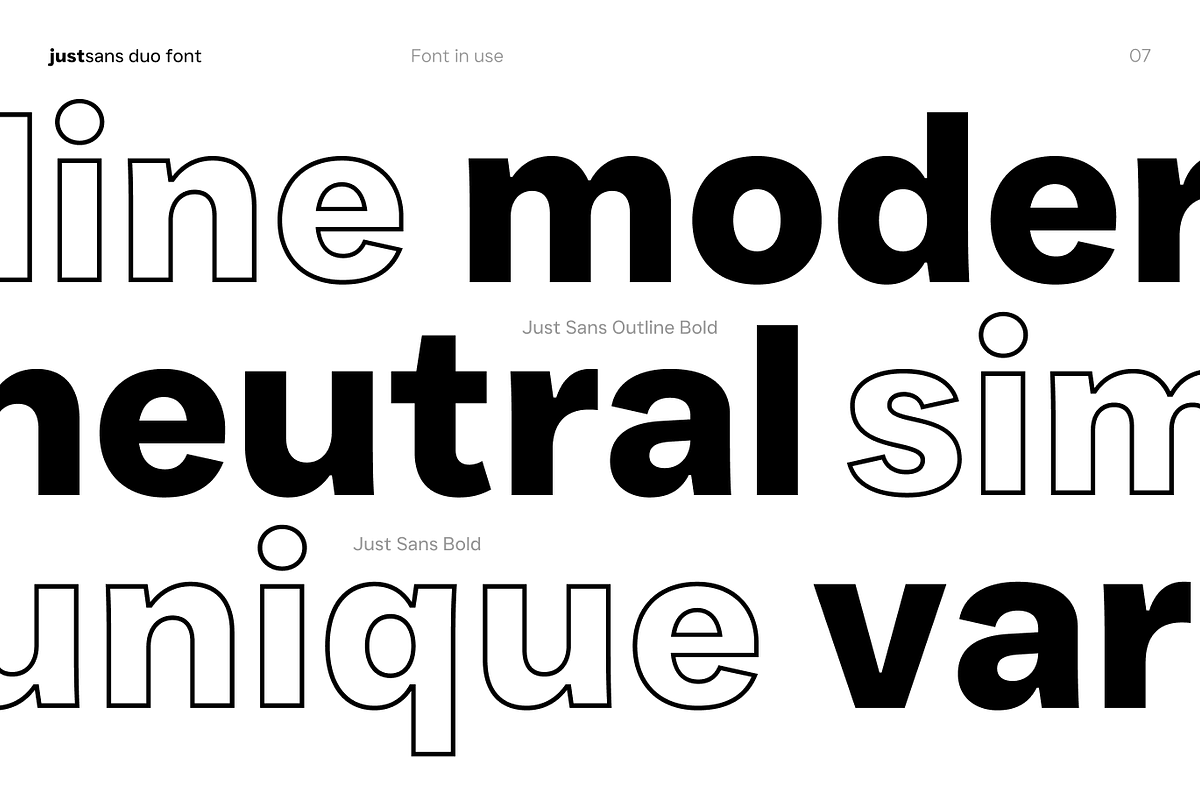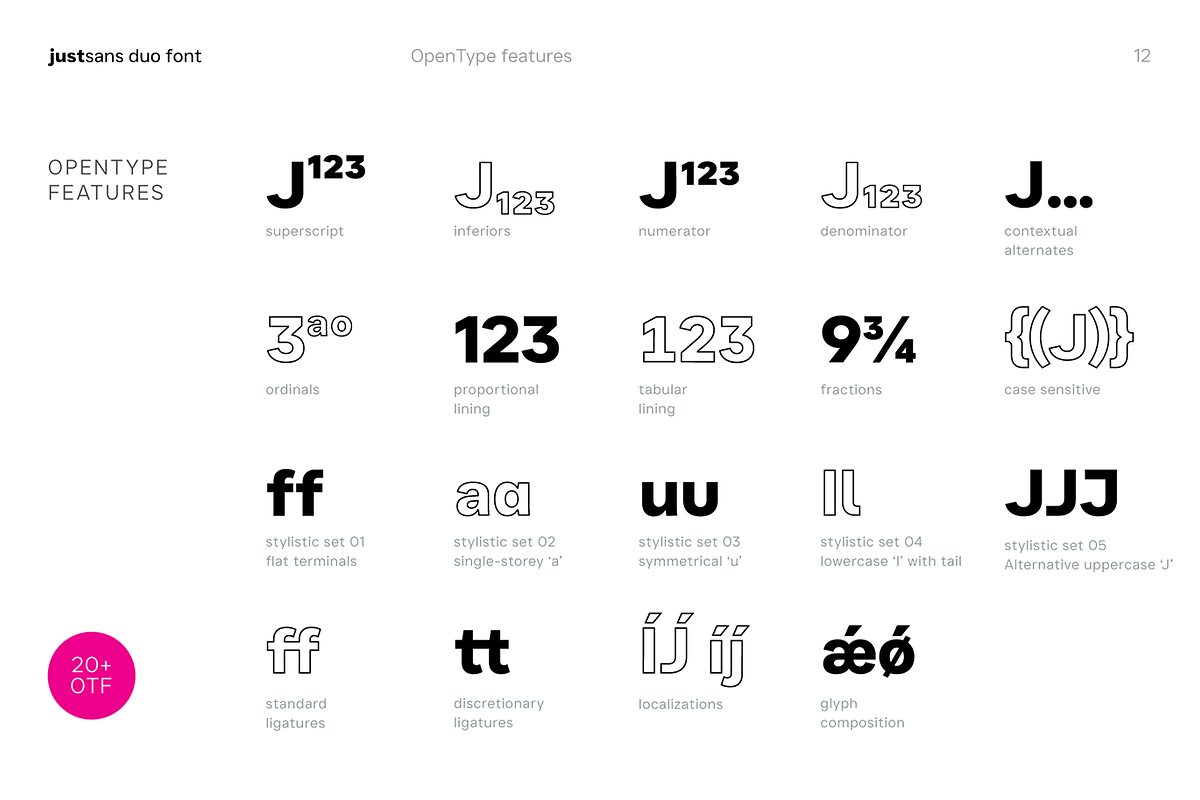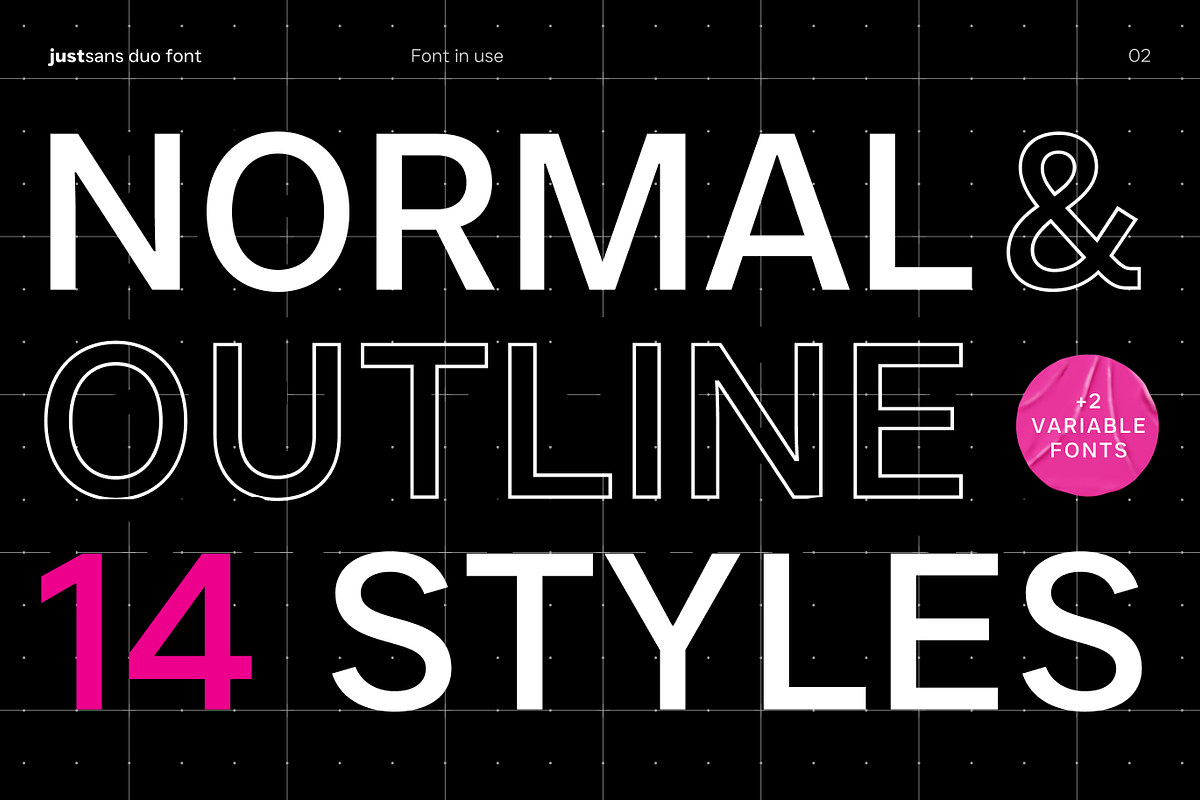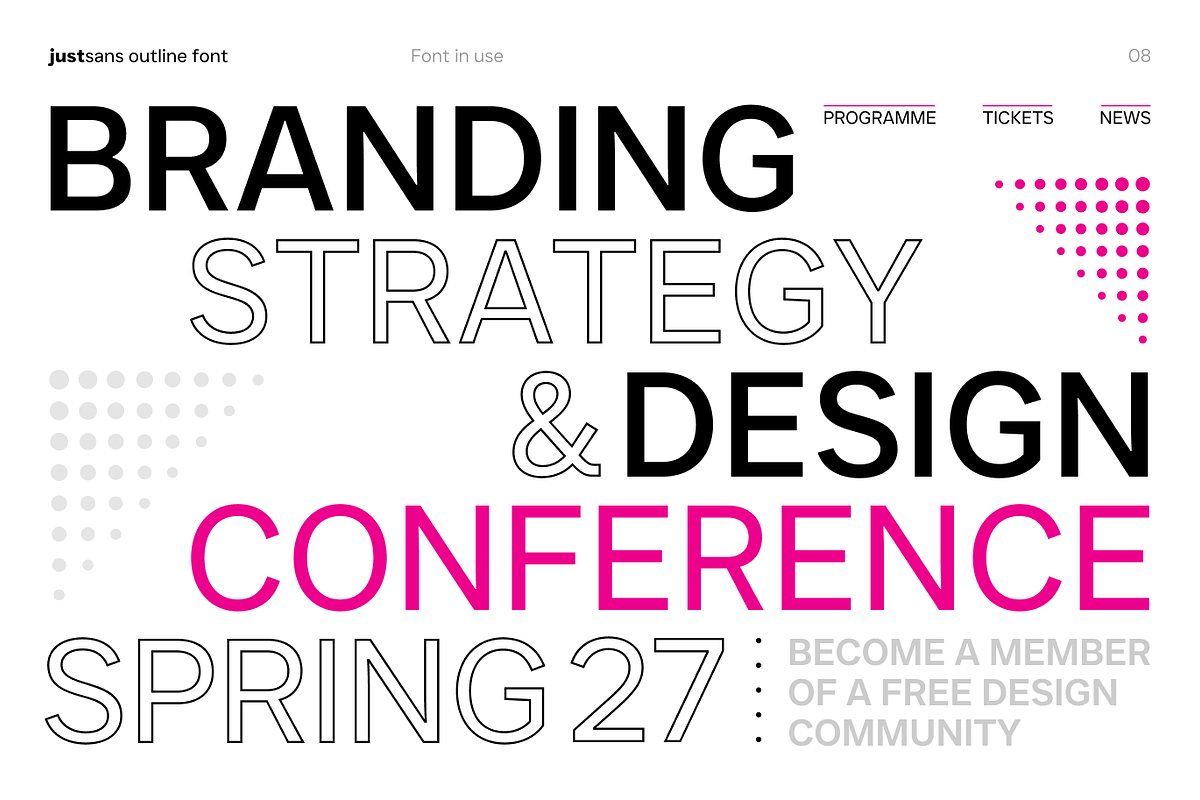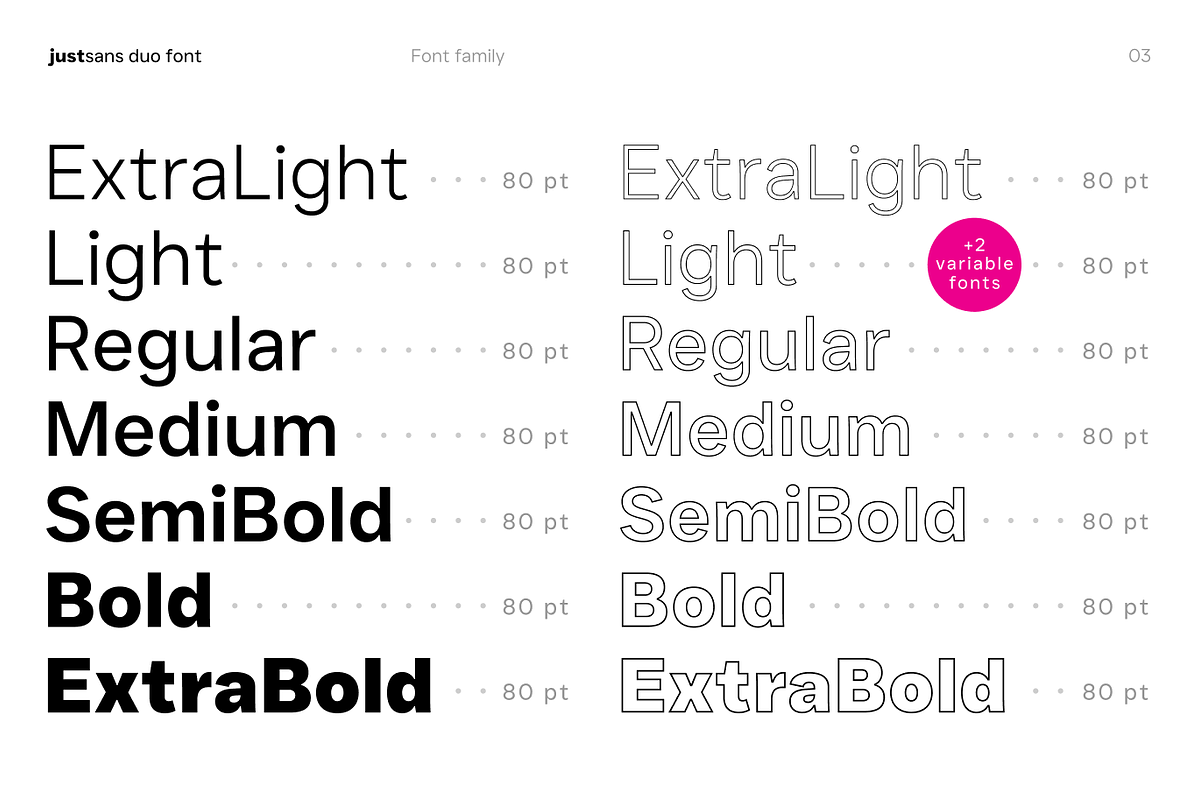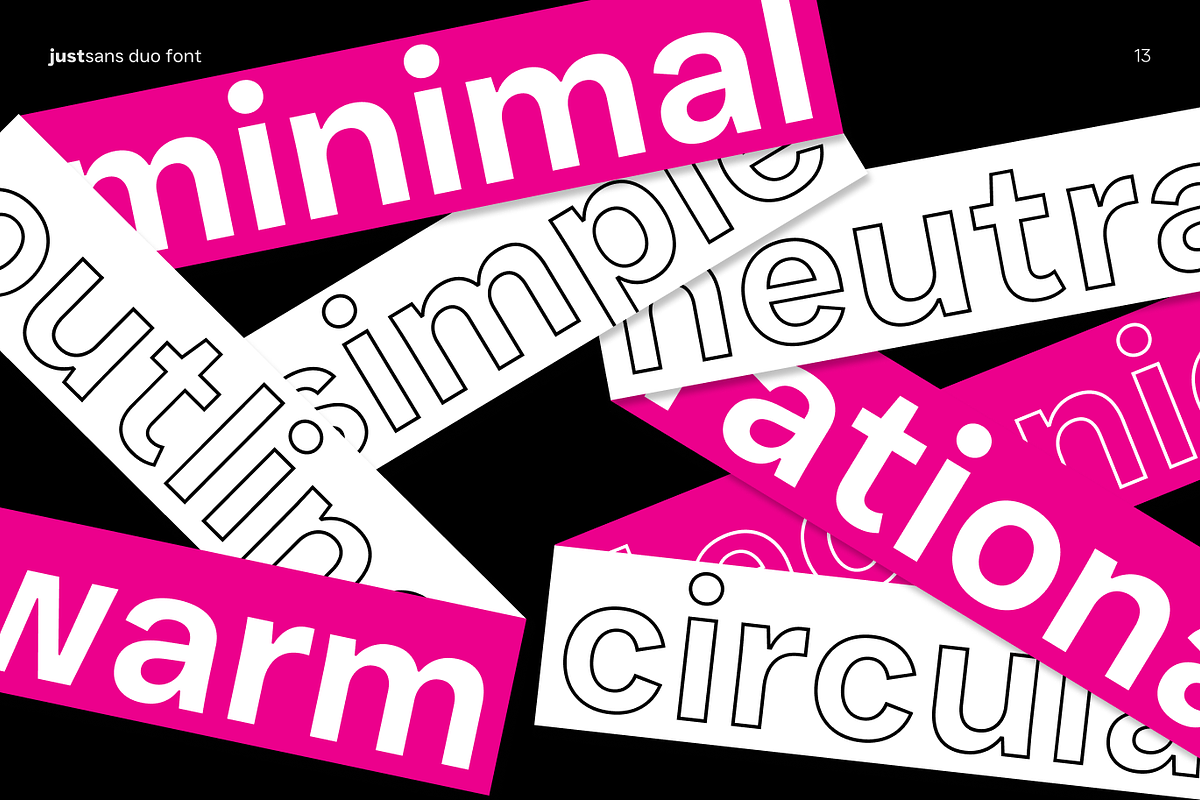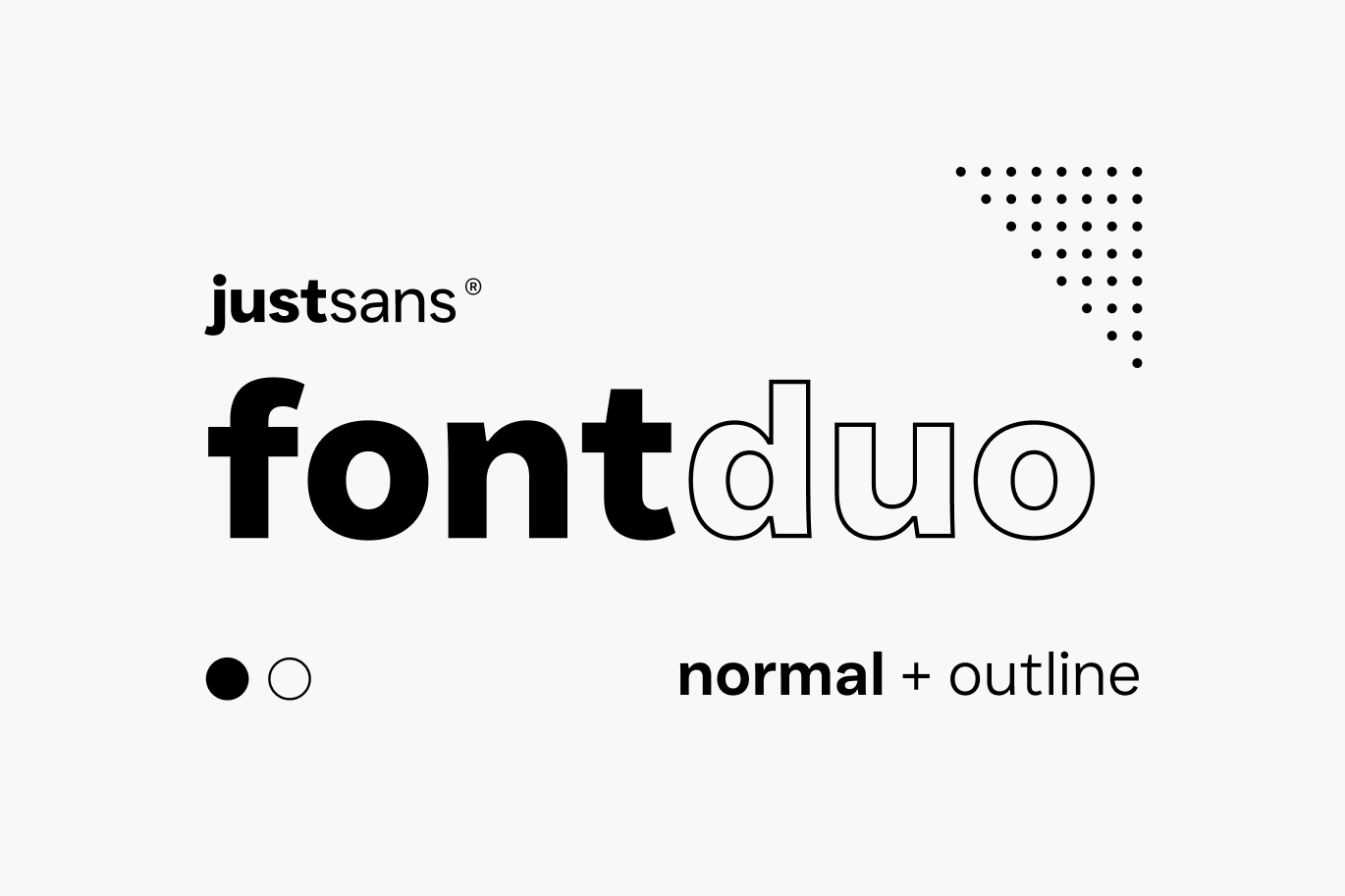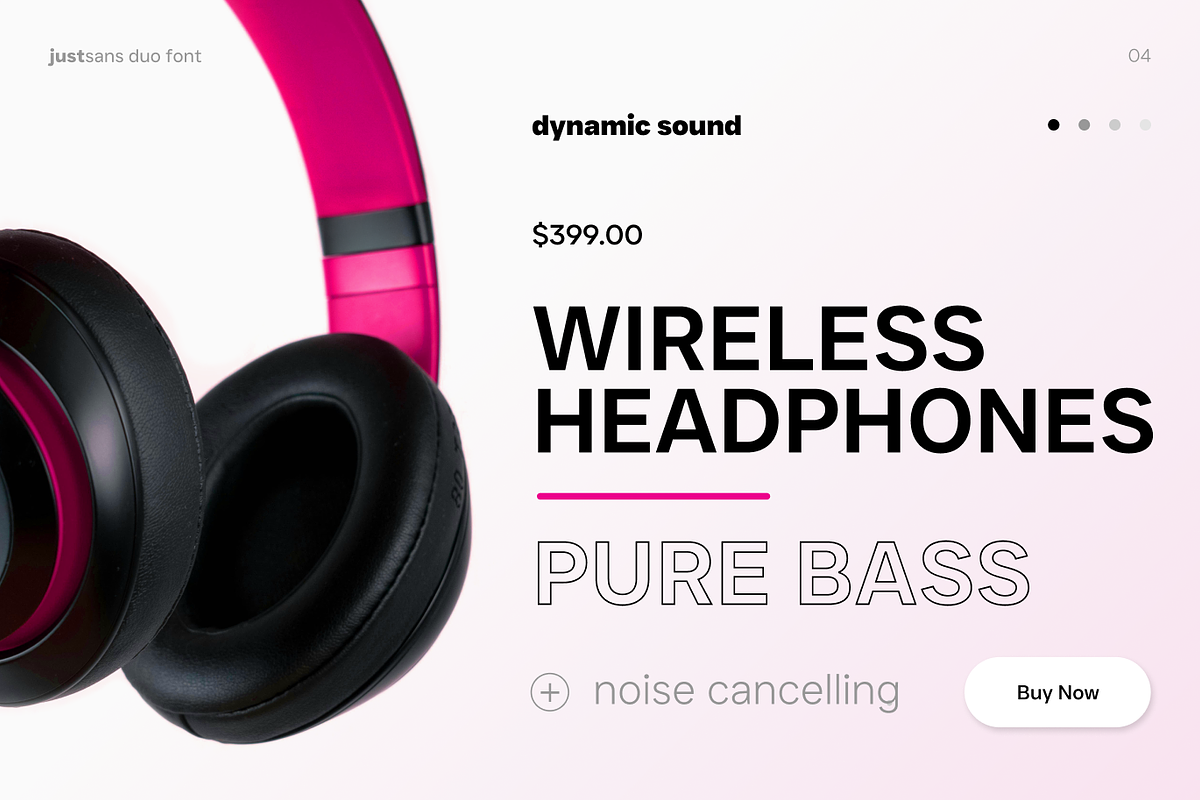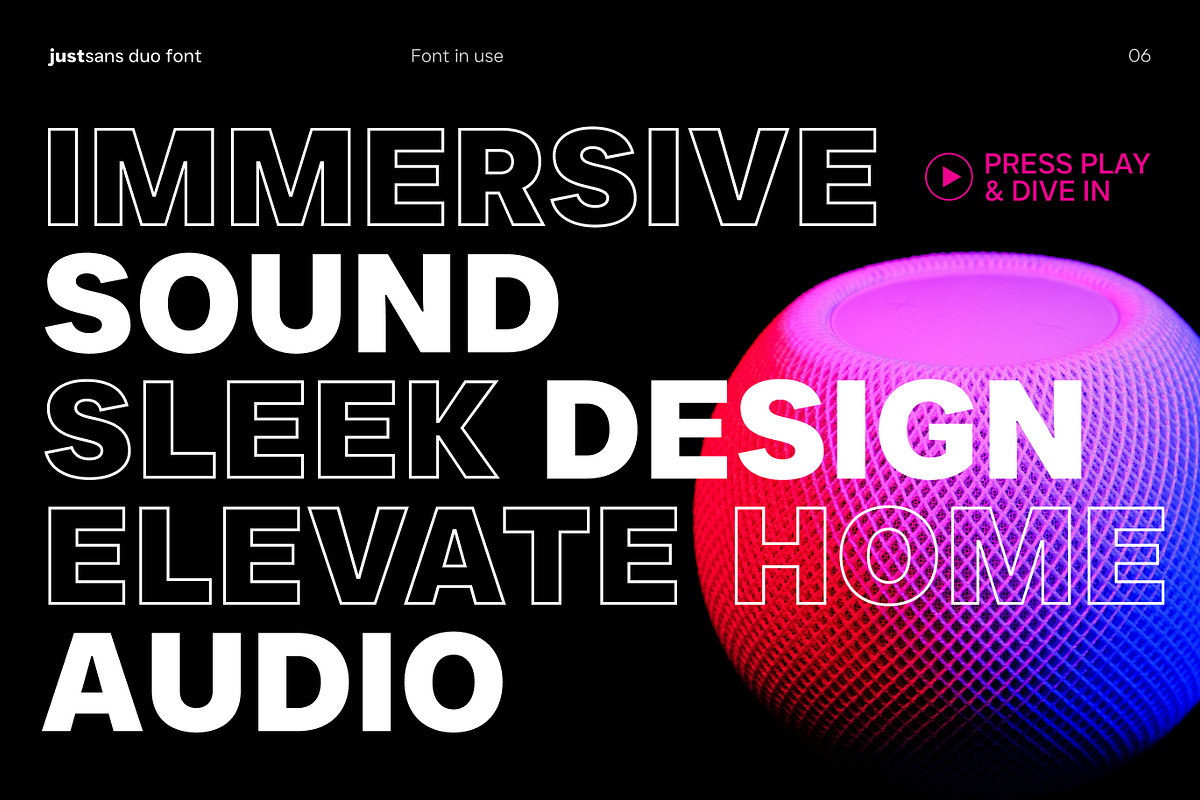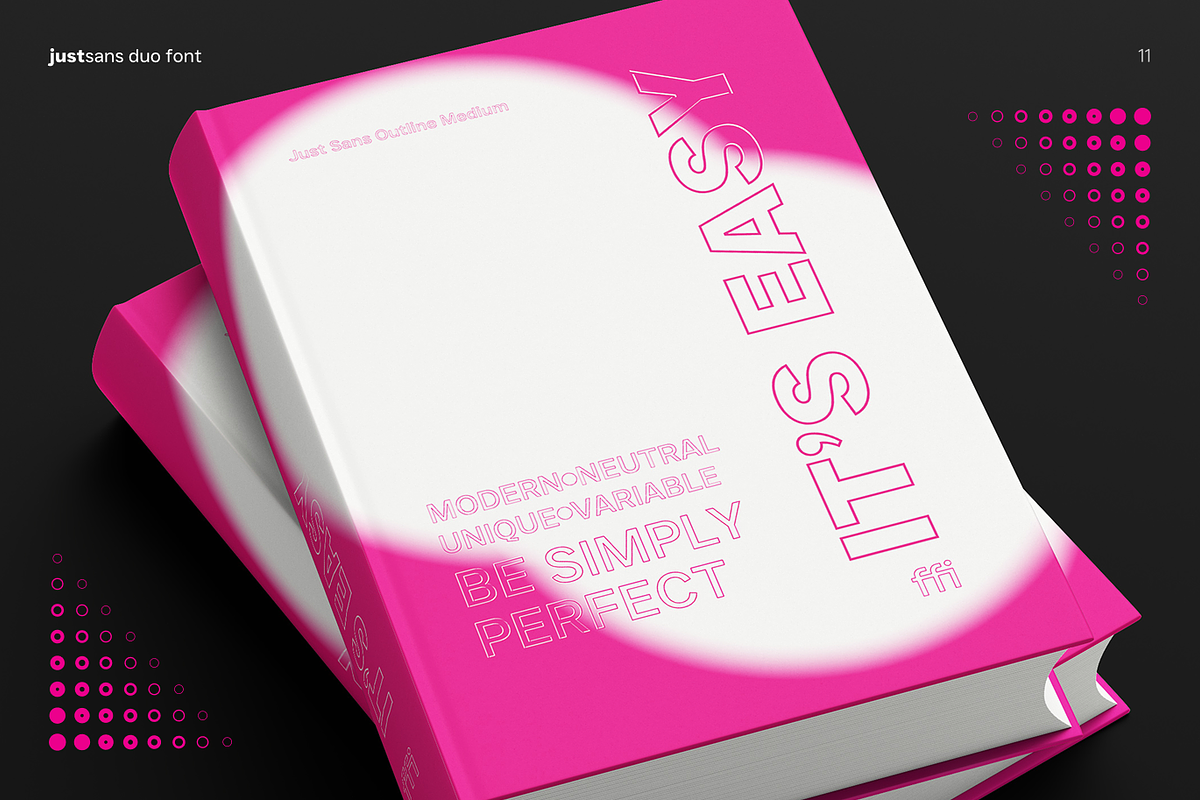
JUST Sans Font Duo — Clean + Outline
JUST Sans® Font Duo – The Ultimate Sans-Serif Pair - Clean Sans + Outline Typeface
The JUST Sans® Font Duo combines the best-selling JUST Sans with its perfect counterpart, JUST Sans Outline, creating a versatile type system designed for bold, expressive, and high-impact typography.
With JUST Sans, you get a clean, modernist sans-serif that is highly functional and effortlessly minimal.
JUST Sans Outline takes it further, adding depth, contrast, and dimension for a striking layered effect.
Together, this seamless font pairing allows you to create dynamic typography with a balanced mix of solid and outline styles—ideal for branding, logos, UI/UX, display type, posters and more.
Why Choose the JUST Sans Font Duo?
- The perfect balance of professional and expressive – Clean, minimal, yet distinctive.
- Designed to work together seamlessly – Mix and match solid and outline styles for striking contrast and hierarchy.
- Ideal for high-impact typography – Perfect for logos, headlines, web design, and modern branding.
- Eliminates manual outlining – Get flawless contour letterforms without spacing issues or tedious adjustments.
What’s Included in the JUST Sans Font Duo?
- JUST Sans – 7 Weights – Light, Extra Light, Regular, Medium, Semi Bold, Bold, Extra Bold
- JUST Sans Outline – 7 Outline Styles – Matching styles for perfect pairing
- 20 OpenType Features – Including stylistic sets, tabular numerals, and case-sensitive punctuation
A Must-Have Typeface Duo for Modern Designers
The JUST Sans Font Duo isn’t just another font pairing—it’s a complete type system that lets you effortlessly mix solid and outline letterforms for maximum visual impact. Whether you’re designing for branding, logos, display typography, web layouts, or functional design, this clean, geometric, modern, and elegant sans-serif duo ensures your typography remains bold, versatile, and highly professional.
Elevate Your Typography with the JUST Sans Font Duo
With JUST Sans and JUST Sans Outline, you get a harmonious font pairing that allows for layered typography, effortless hierarchy, and striking visual depth—perfect for designers aiming to create impactful, modern, and high-contrast designs with ease.